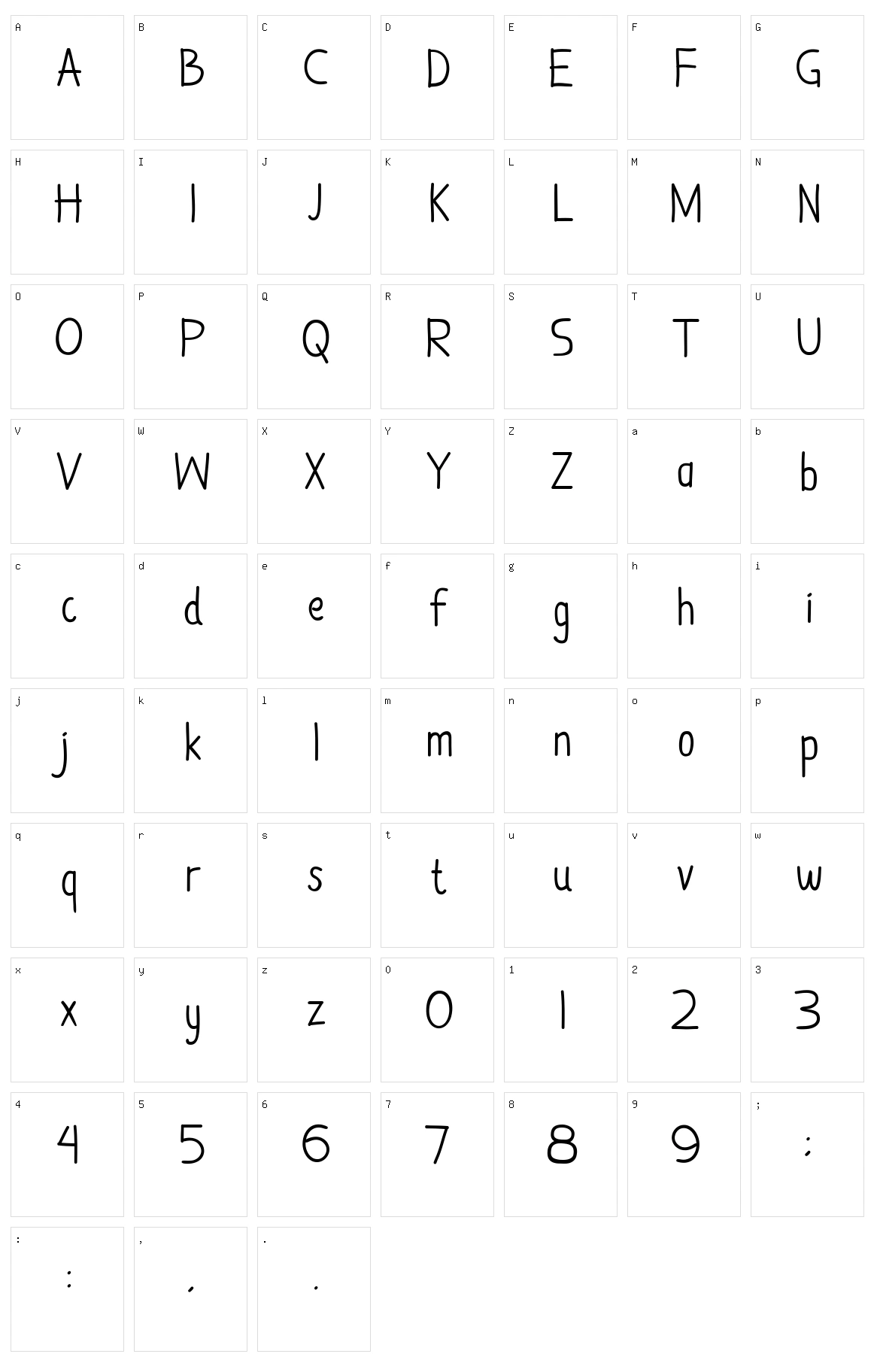
The free font Damai Kpk Polri is carefully designed by Adien Gunarta, showcasing a thoughtful balance of creativity and usability and falls under the Script font style. When you download the ZIP file, it contains only 14.71 KB of font files, making it lightweight and quick to download. Please review the license details below to understand permitted usage and distribution rights. If license information is not available, we recommend using this font for personal projects only or contacting the author directly for commercial usage permissions.